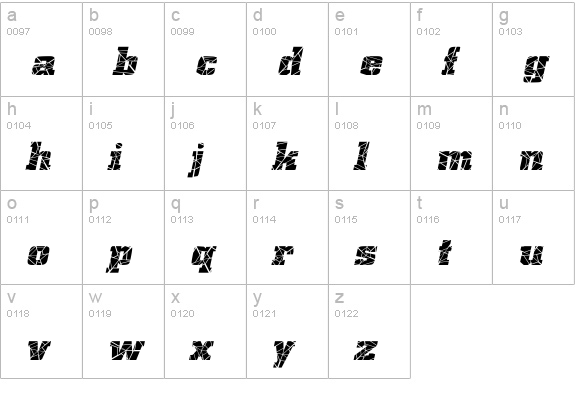
Borghs Cracked-Extended Italic is a distinctive, extended-width, italic variant in the Borghs typeface family \xE2\x80\x94 well suited to design and typography projects.
Introducing Borghs Cracked-Extended Italic font, a unique and stylish typeface perfect for adding a touch of edgy sophistication to your designs. This font features cracked detailing that adds a modern and artistic flair to any project. The extended italic style gives it a dynamic and contemporary look, making it ideal for logos, branding, posters, and more. What makes Borghs Cracked-Extended Italic font even more appealing is that it is available for free download at FontsMarket.com. This means you can easily access this eye-catching font and incorporate it into your creative endeavors without any cost. Don't miss out on the opportunity to enhance your designs with this striking typeface - download Borghs Cracked-Extended Italic font today and let your creativity soar!